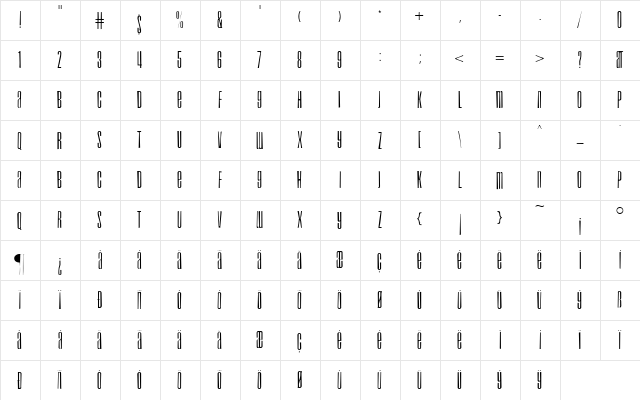
Droid Gaunt Regular Font Preview
Droid Gaunt Regular
Design Context for Droid Gaunt Typeface
Droid Gaunt offers clean, dependable letterforms without strong stylistic allegiance, making it a practical choice for designers who need flexibility.